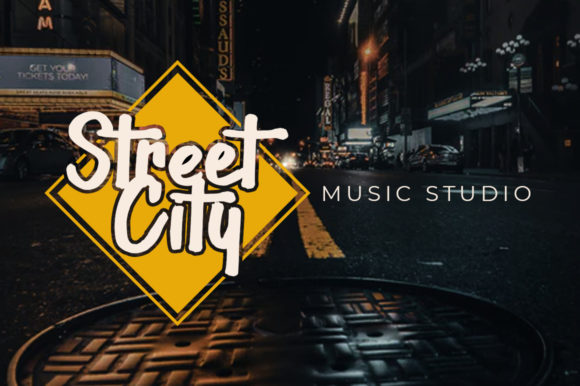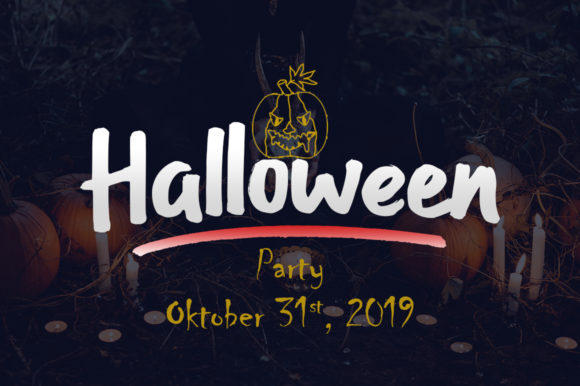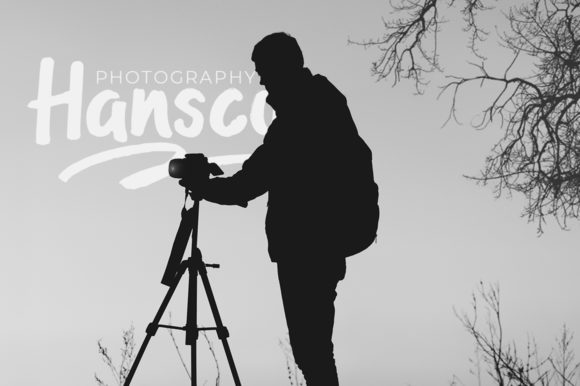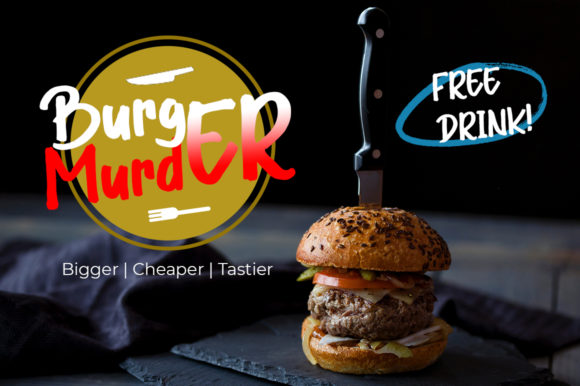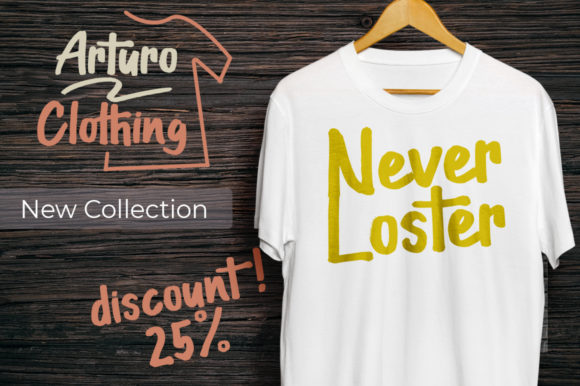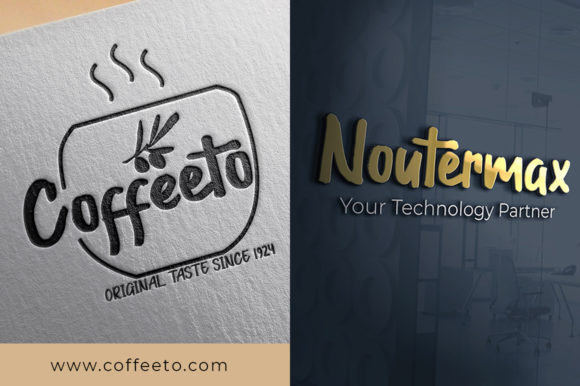
Introduction to Guttenwell Font
Guttenwell is an incredible script font that will add a bold feel to any design project.
Guttenwell is an incredible script font that will add a bold feel to any design project!
Key Features of Guttenwell Font
Why Choose Guttenwell Font?
Guttenwell Font offers exceptional quality and versatility, making it a valuable addition to your design toolkit. Whether you’re creating for personal projects or commercial use, Guttenwell Font delivers professional results.